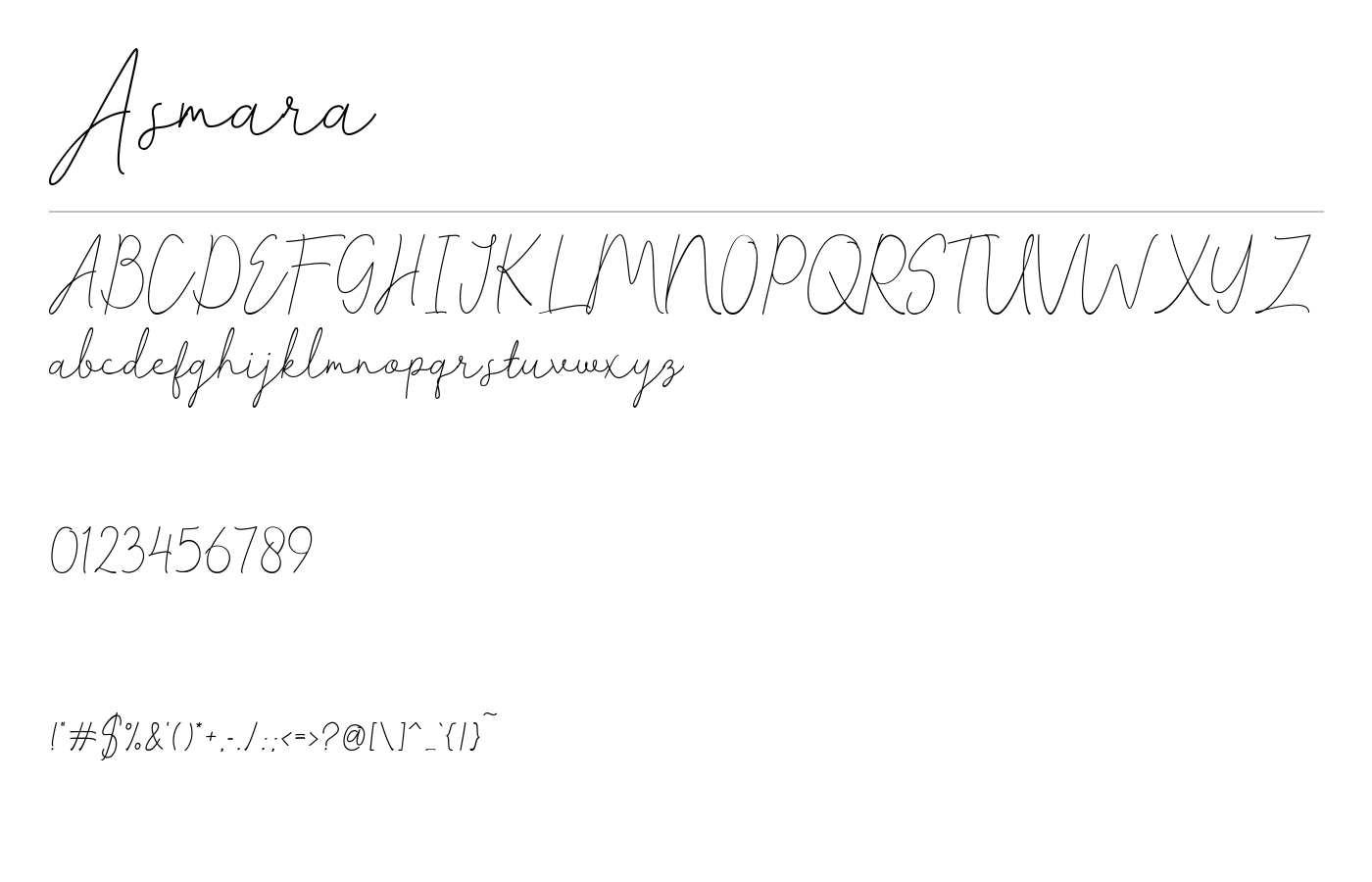
Asmara is a delicate, handwritten script font with a light weight and airy feel. Its tall, slender letterforms and elegant loops give it a personal and graceful touch, making it ideal for invitations, branding, and feminine or artistic designs that seek a refined, intimate vibe. This font works best in decorative contexts where a subtle, stylish handwritten look is desired.
Asmara Font
About Asmara Font
| Designer | Bagas Satriawan |